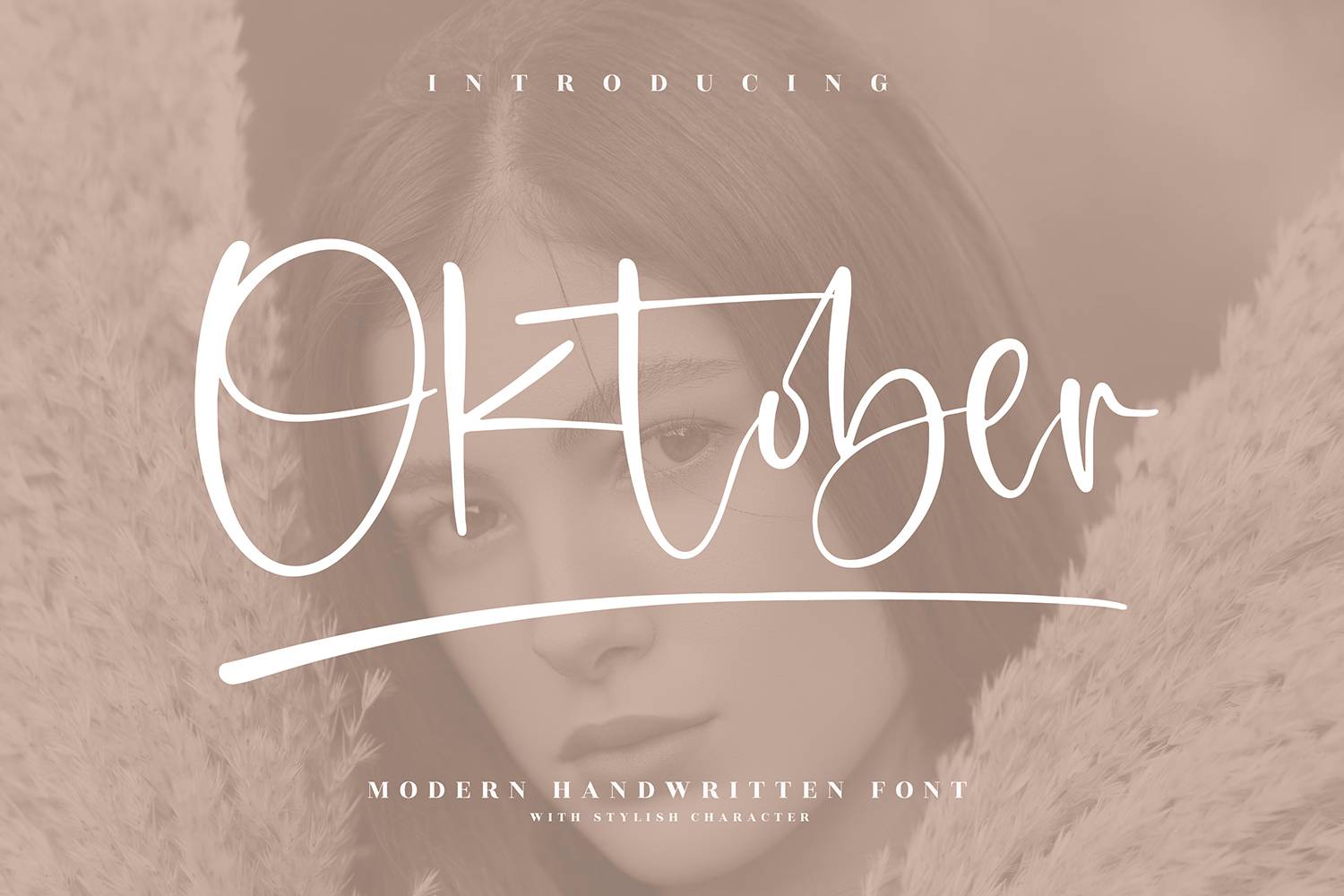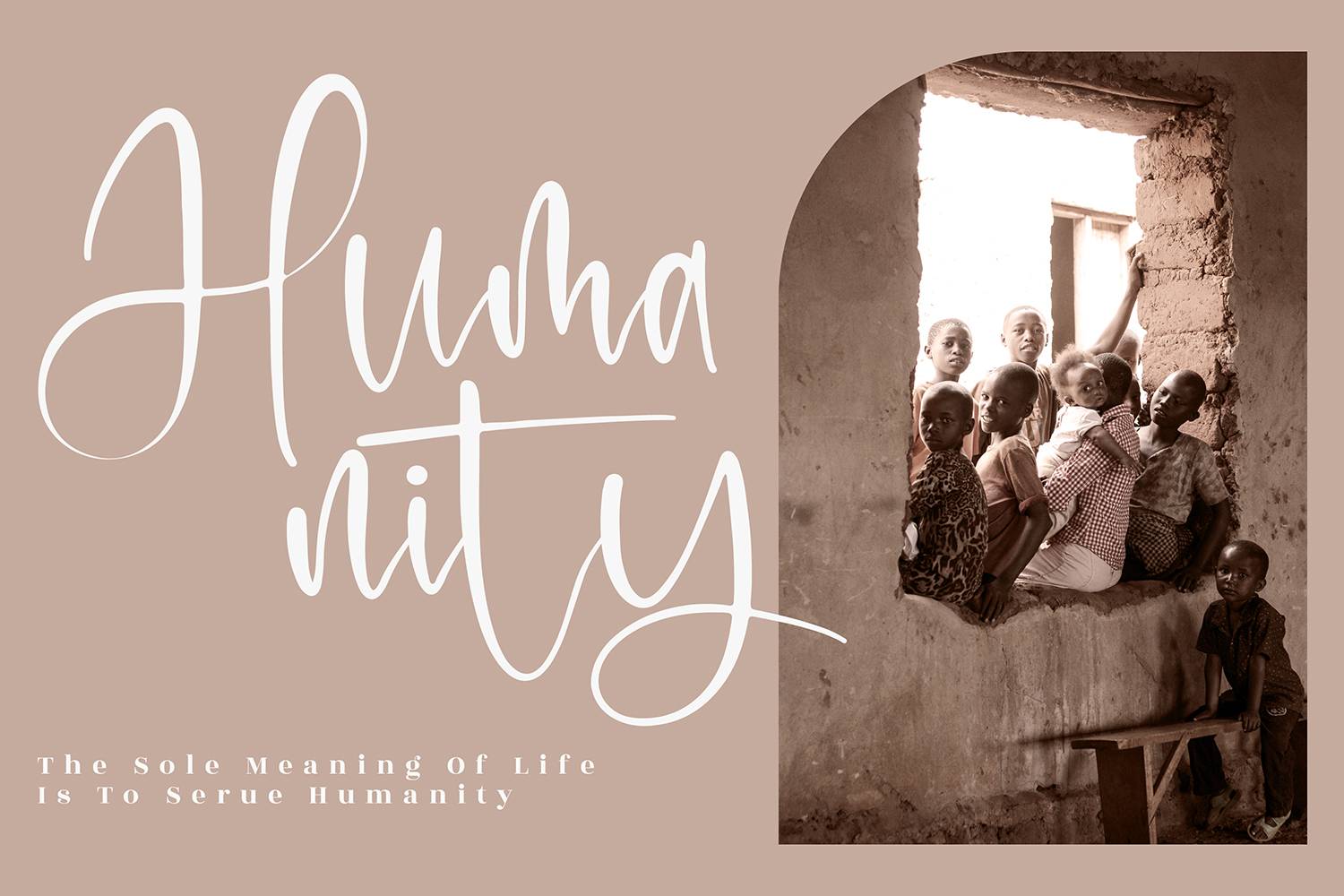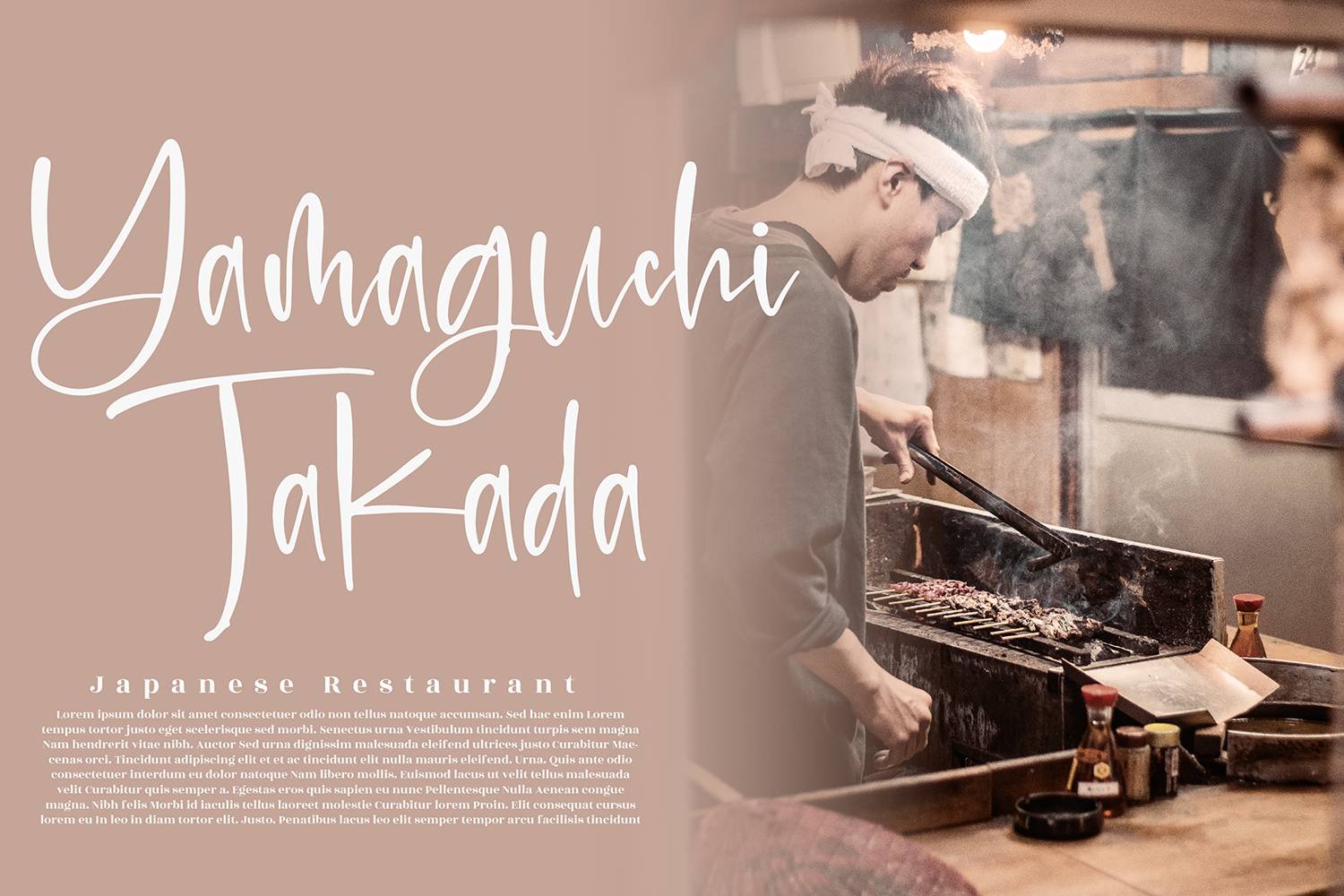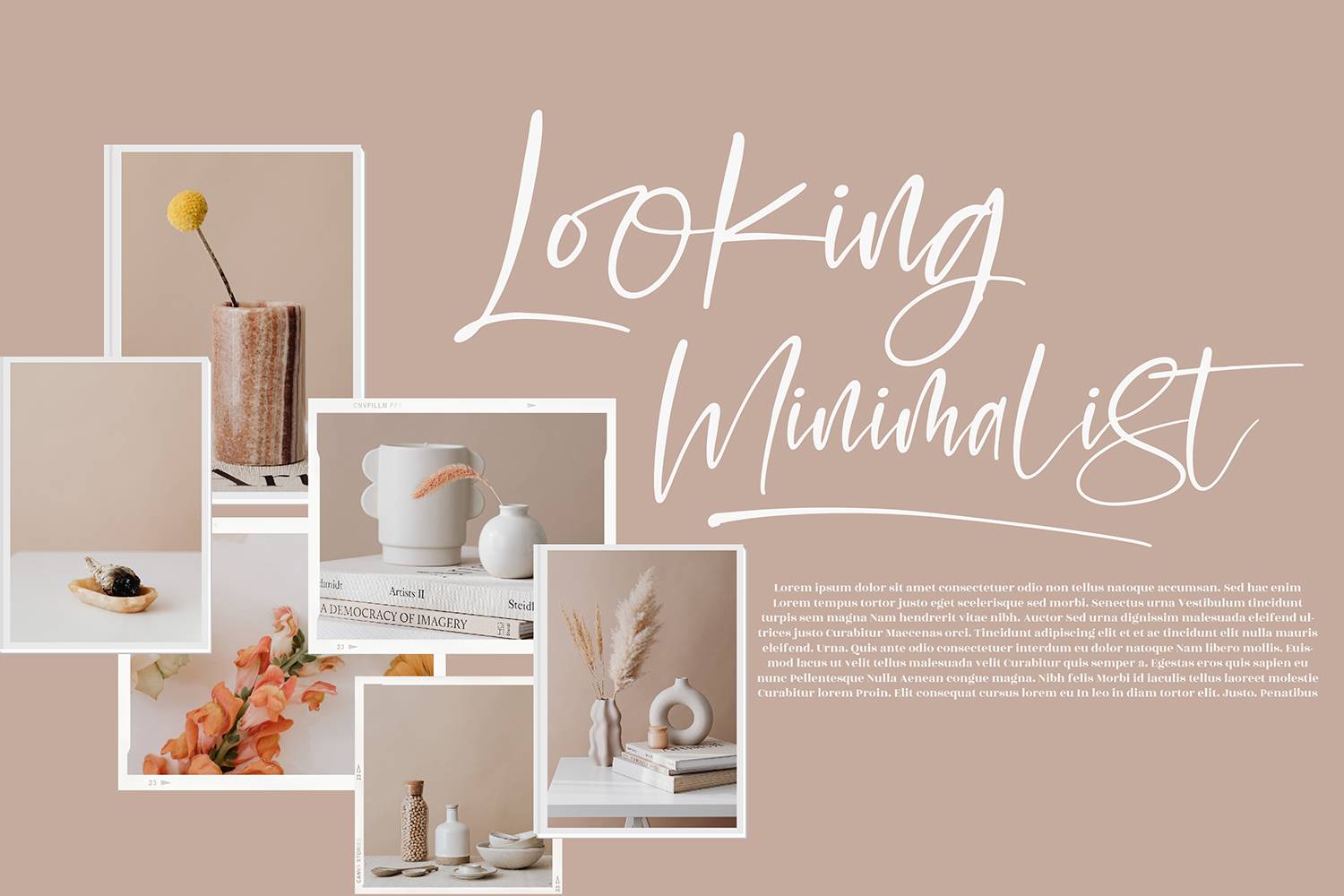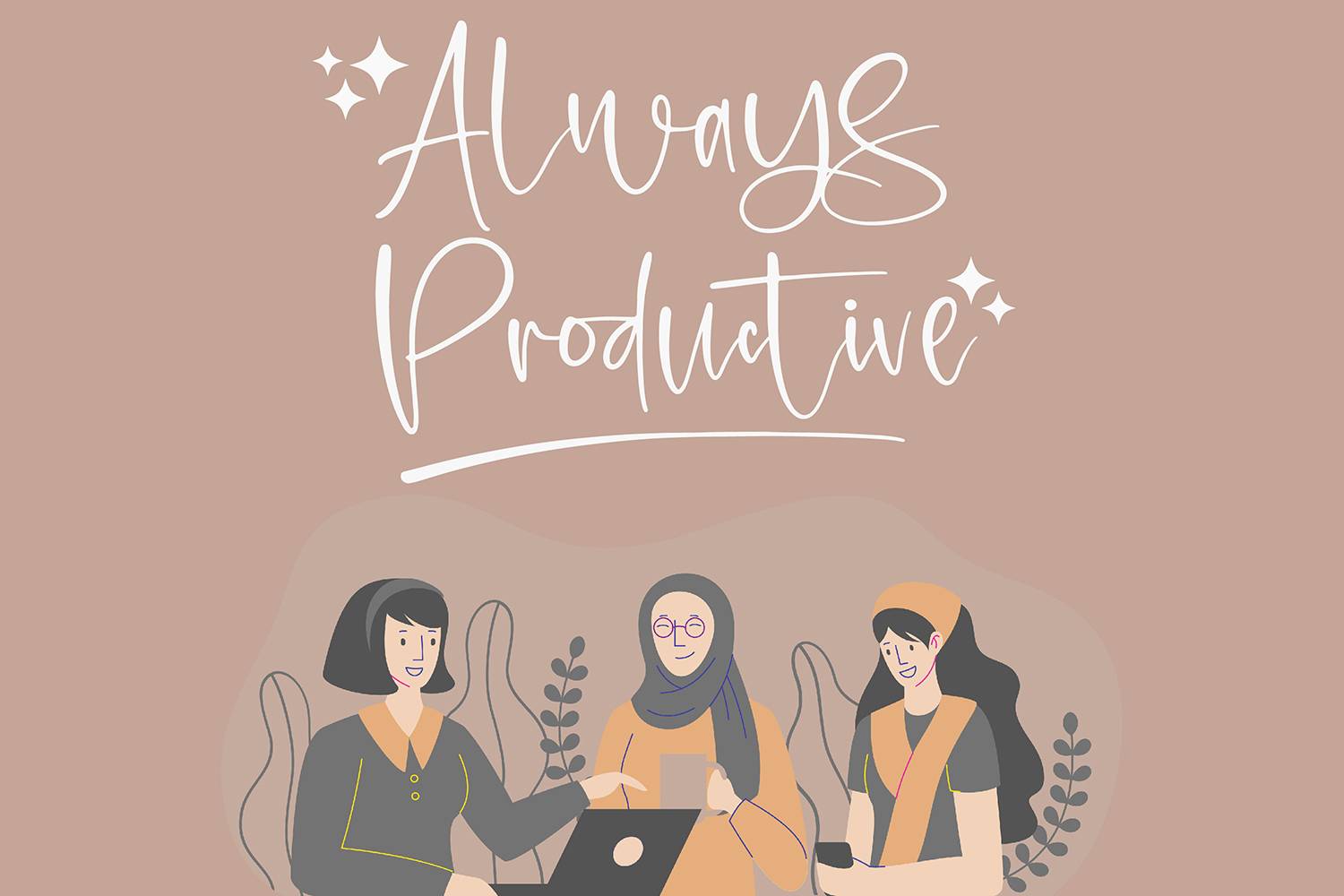
Oktober is a playful, handwritten font featuring tall, slender letterforms with a casual, flowing style. Its thin strokes and quirky character shapes give it a friendly, artistic feel, making it perfect for creative projects, personal branding, and informal designs that want to convey warmth and individuality. This font works well in headlines, invitations, and any context where a lively, hand-crafted look is desired.
Oktober Font
About Oktober Font